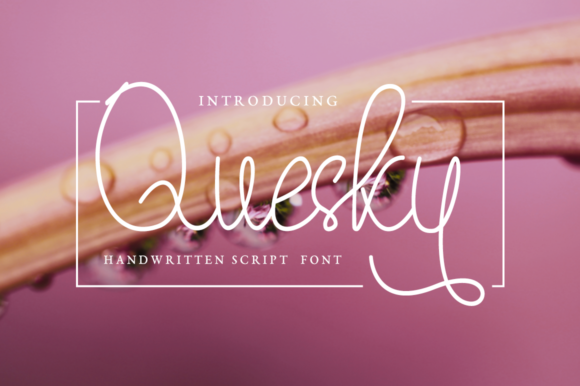
Welcome to the world of Quesky Font, a mesmerizing script font that captures the essence of elegance and sophistication. Immerse yourself in the beauty of its carefully crafted thin flowing lines, designed to evoke a sense of effortless charm and grace. Quesky Font is the ultimate choice for those seeking a font that exudes both professionalism and playfulness.
With its delicate strokes and captivating curves, Quesky Font adds a touch of magic to your digital correspondence. Whether you're composing heartfelt emails, crafting stunning presentations, or designing captivating social media posts, Quesky Font elevates your words, transforming them into works of art.
Embrace the versatility of Quesky Font, seamlessly adapting to a myriad of digital platforms and applications. Its graceful lines flow effortlessly across screens, captivating audiences with its enchanting presence. Personalize your digital world with Quesky Font, making a lasting impression wherever your words may wander.
Indulge in the artistry of Quesky Font, a creation of the renowned CBRTEXT Studio. Experience the passion and dedication poured into every curve and stroke, resulting in a font that speaks volumes. Quesky Font embodies the essence of creativity, inspiring you to express yourself with flair and originality.
Unlock the potential of Quesky Font, the perfect companion for email writing. Its elegant design enhances the readability of your messages, ensuring your words resonate with clarity and impact. Craft emails that captivate and engage, leaving a lasting impression on recipients.